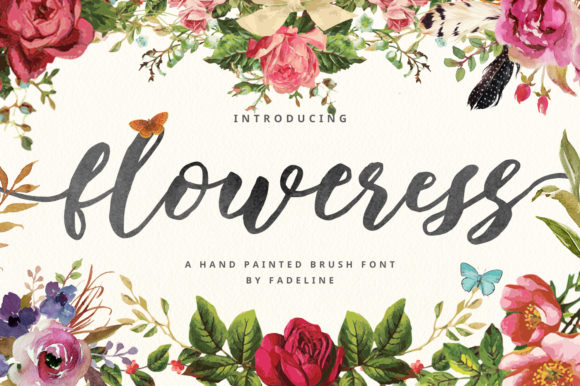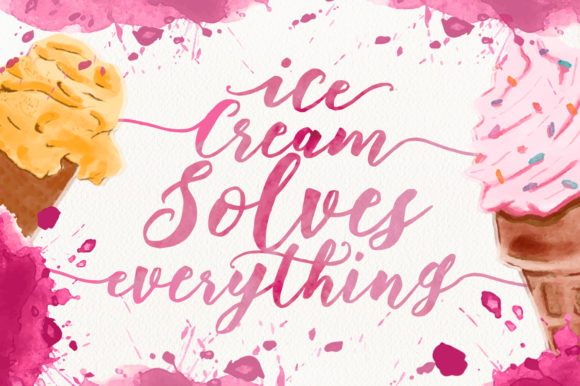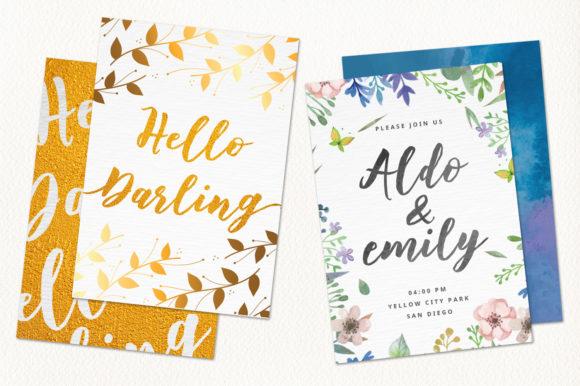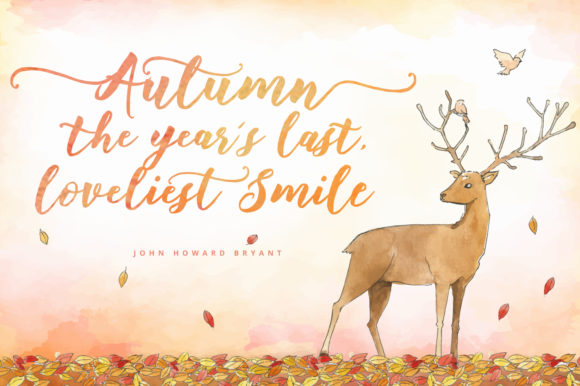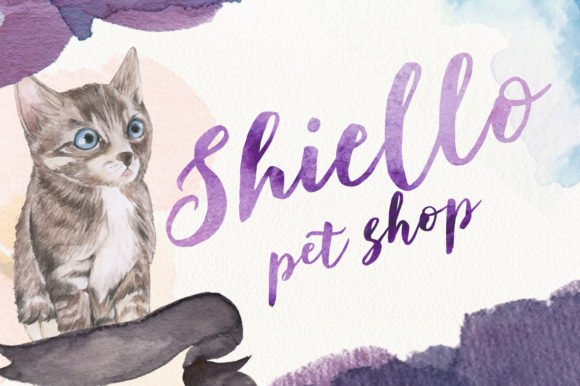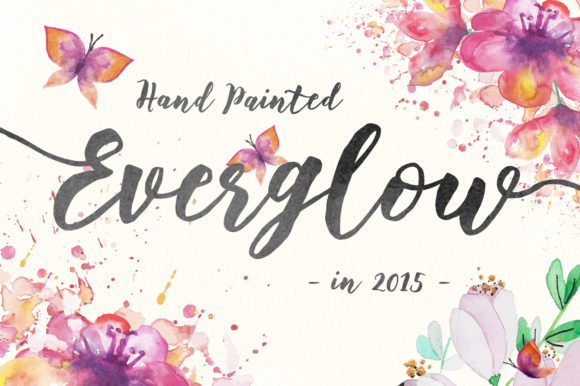
HomeScript FontsFloweress Font Script Fonts Floweress Font FacebookXPinterestWhatsApp Floweress Font Poster 2 Floweress Font Poster 3 Floweress Font Poster 4 Floweress Font Poster 5 Floweress Font Poster 6 About Floweress Font Floweress is a fun and bold handwritten font with a cool feel. Fall in love with its romantic elegance. DOWNLOAD NOW People also explored Mettamorph Font Moreen Maira Font Winter Christmas Font Beauty Sunshine Font Fillmade Font Malwrence Font Melinda Font Full Love Font Best Soulmate Font 307 0 TagsFloweress Font Previous articleKelasik FontNext articleFlash Script Font LEAVE A REPLY Cancel reply Comment: Please enter your comment! Name:* Please enter your name here Email:* You have entered an incorrect email address! Please enter your email address here Website: Save my name, email, and website in this browser for the next time I comment. Personal Use Free Geuli Personal Use Free Read more about this font Party Pooper Personal Use Free Read more about this font Tahu Font Personal Use Free Read more about this font Love Story Personal Use Free Read more about this font BLOG Free vs Paid Fonts: Why Investing in Premium Fonts Is Worth It Free vs Paid Fonts: Why Premium Fonts Are Worth It in 2025 The debate of free vs paid fonts continues in the design world. While... 5 Fonts That Will Dominate Design Trends in 2026 Fonts That Capture the Spirit of New York City Where to Buy American Fonts Online in 2024